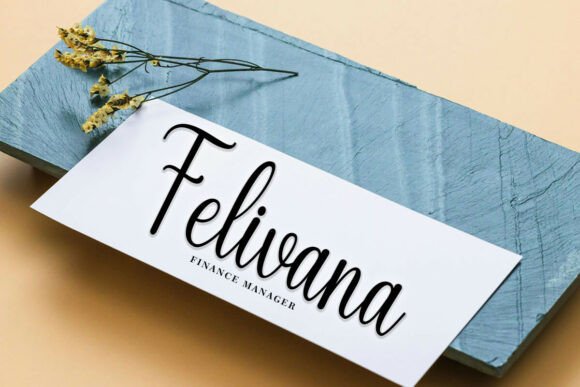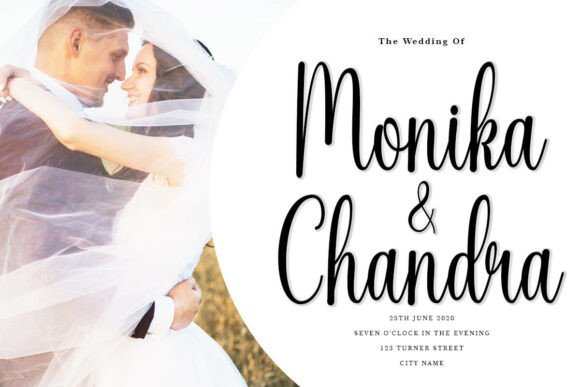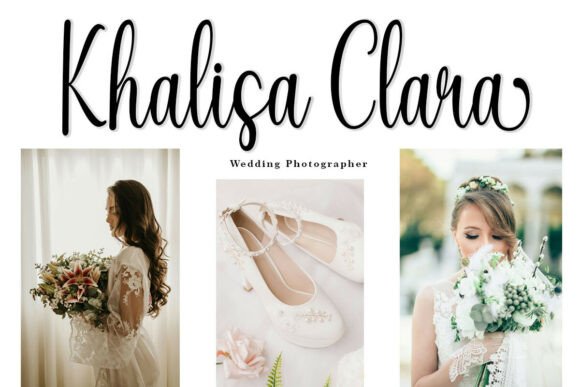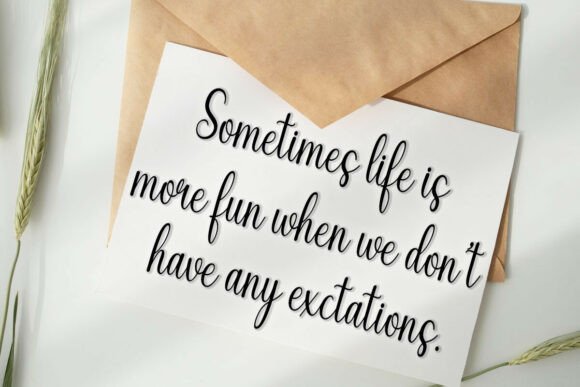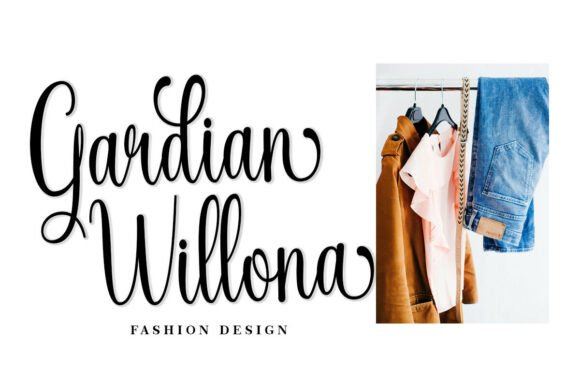
Introduction to Barbie Script Font
Barbie Script is a font that exudes softness and elegance.
With graceful strokes and a feminine touch, this font will elevate any design project to the highest level, whether itโs branding, titles, wedding designs, invitations, signage, logos, labels, and more .
Key Features of Barbie Script Font
Barbie Script Font offers exceptional quality and versatility, making it a valuable addition to your design toolkit. Whether you’re creating for personal projects or commercial use, Barbie Script Font delivers professional results.